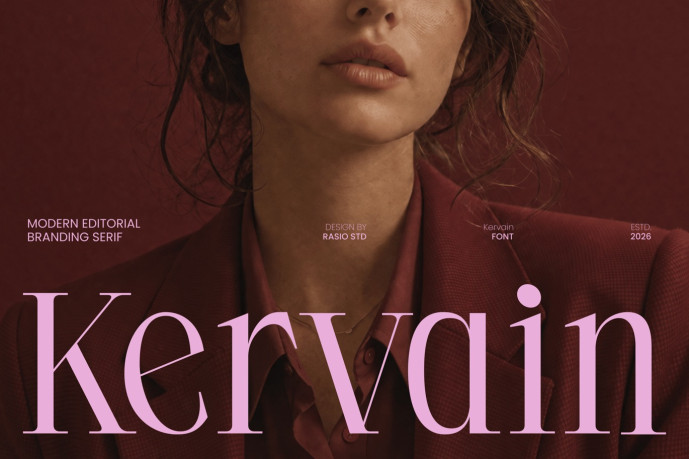
Kervain Modern Branding Serif Font
Kervain Modern Branding Serif Font is a refined modern editorial serif font designed to express luxury, confidence, and timeless sophistication. Featuring elegant high-contrast strokes, graceful curves, and elongated proportions, this typeface delivers a polished visual identity that elevates every composition. Its balanced structure creates exceptional readability while maintaining a distinctive editorial personality, making it ideal for premium branding and fashion-inspired typography. Kervain includes uppercase and lowercase characters, numerals, punctuation, and ligatures, providing extensive flexibility for professional designers.
Inspired by luxury magazines, couture branding, and contemporary minimalist aesthetics, Kervain blends classic serif craftsmanship with modern refinement. Every character is carefully designed with delicate transitions, sharp details, and generous spacing to create an effortless sense of elegance. Whether used for logos, headlines, packaging, or editorial layouts, the font communicates exclusivity and premium quality through its graceful letterforms. Perfectly suited for luxury fashion brands, beauty and skincare products, perfume packaging, boutique businesses, editorial publications, magazine covers, wedding invitations, premium branding, hotel identities, jewelry collections, product packaging, creative portfolios.
Uppercase & Lowercase
Numeral & Punctuations
Standard Ligatures